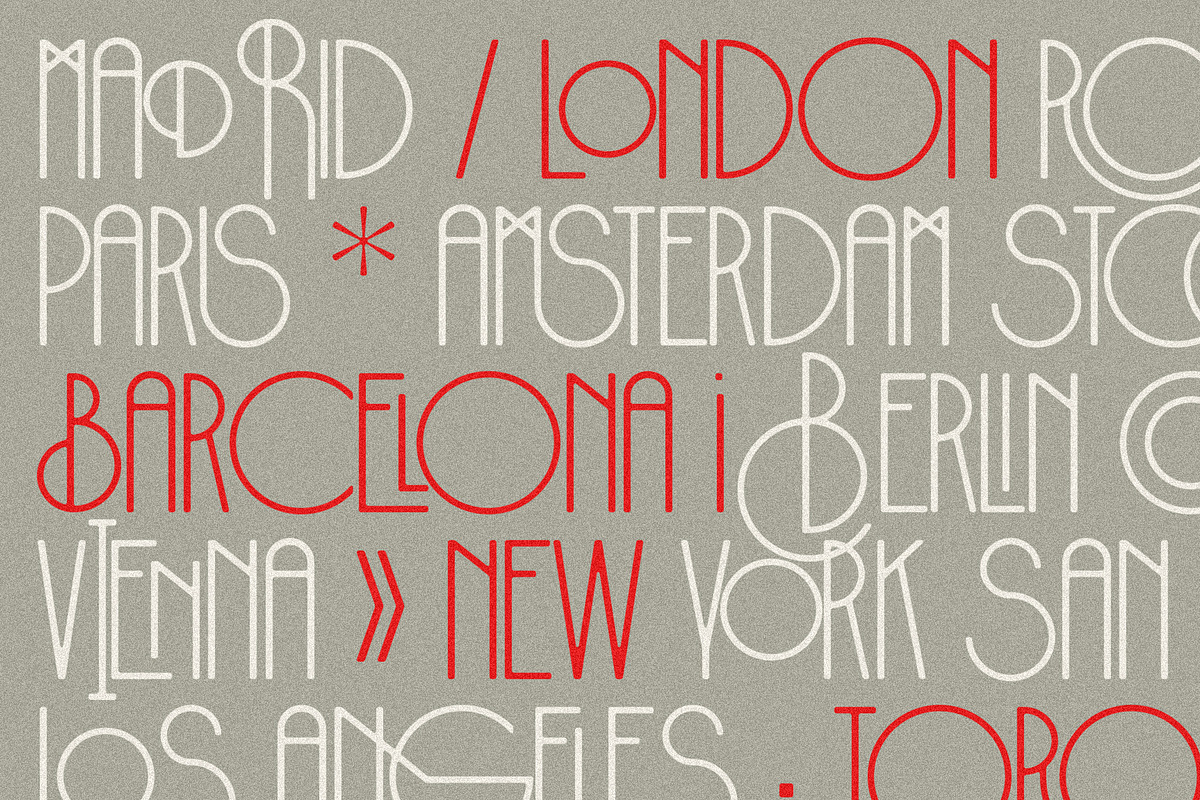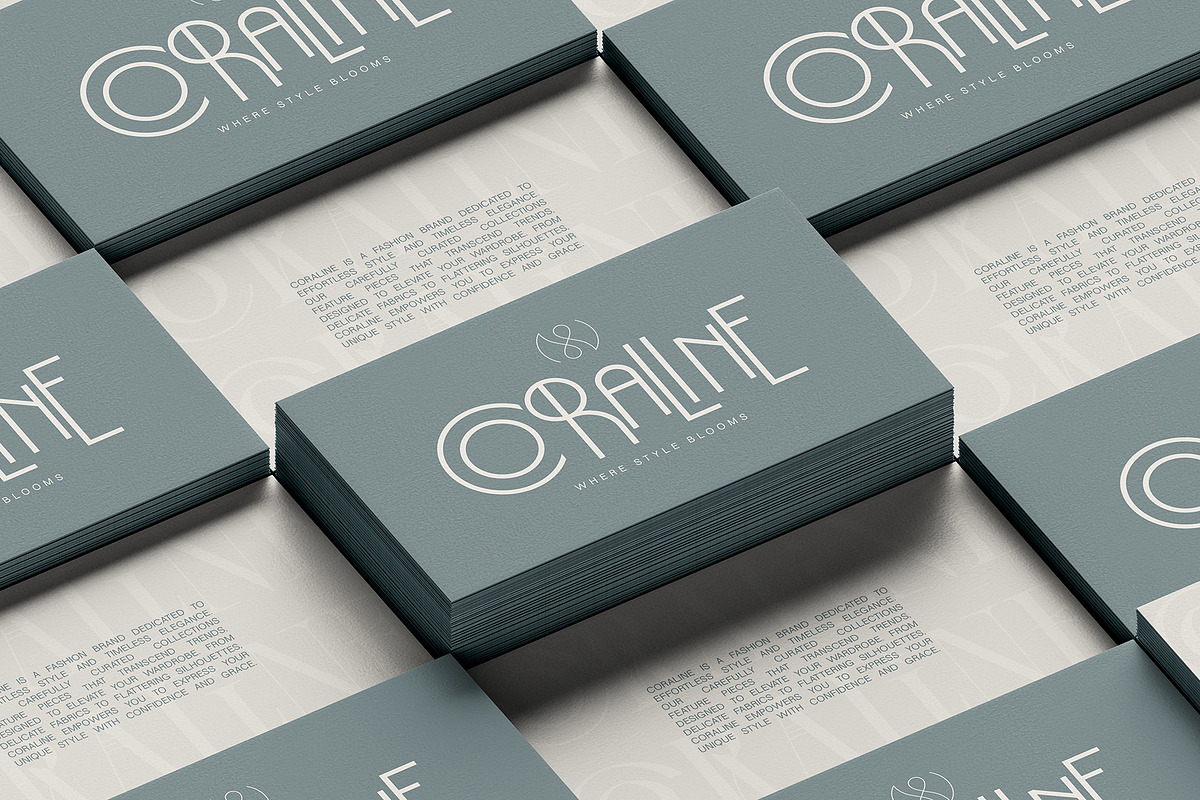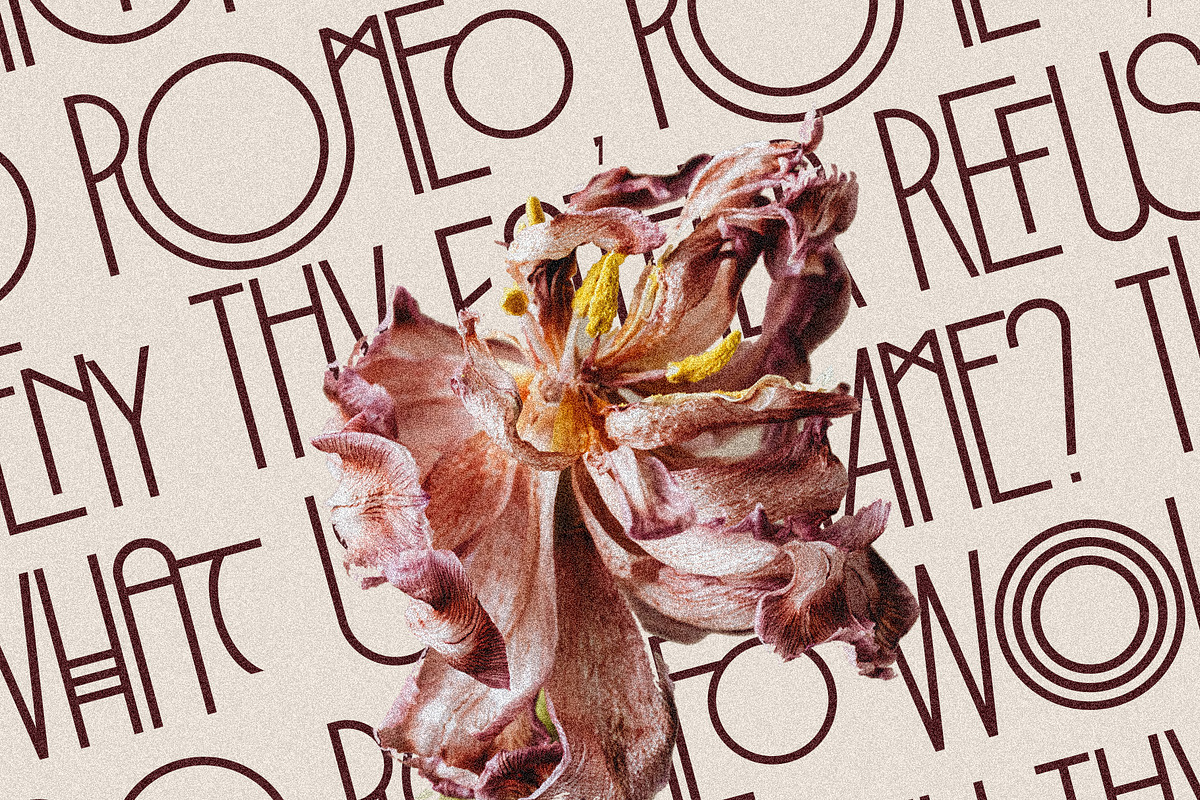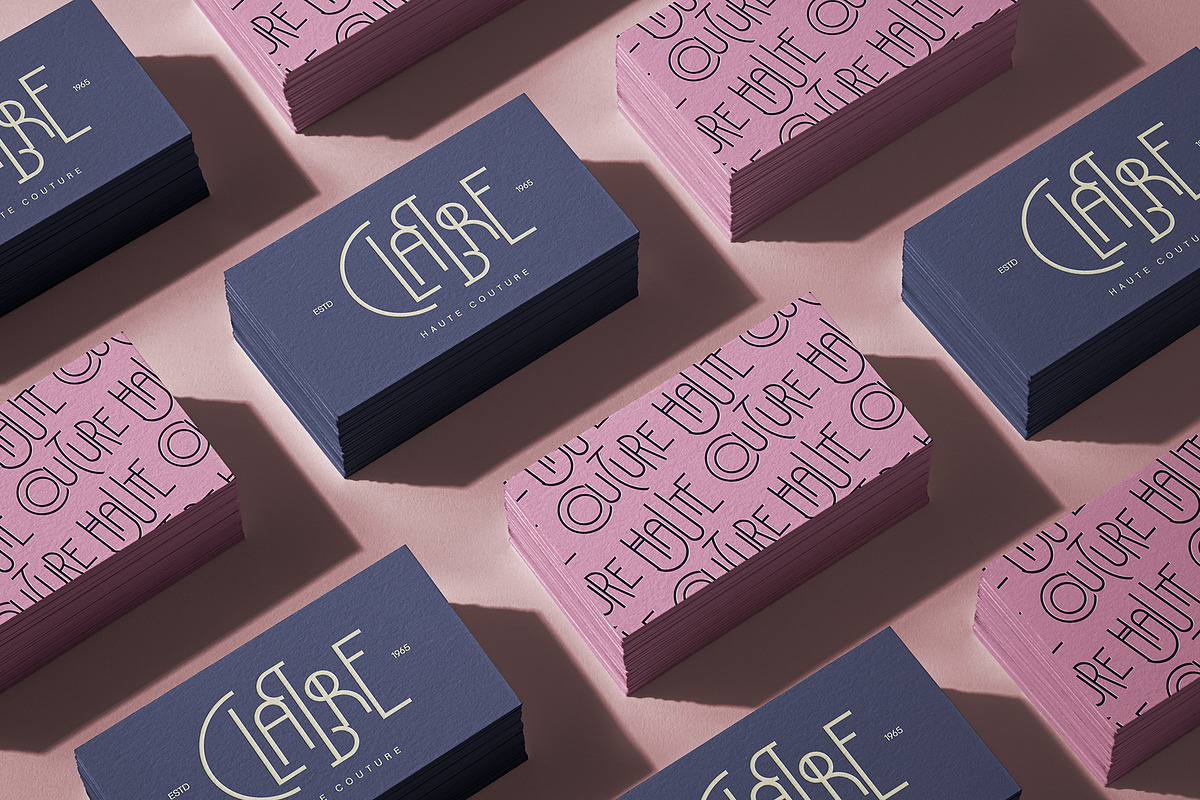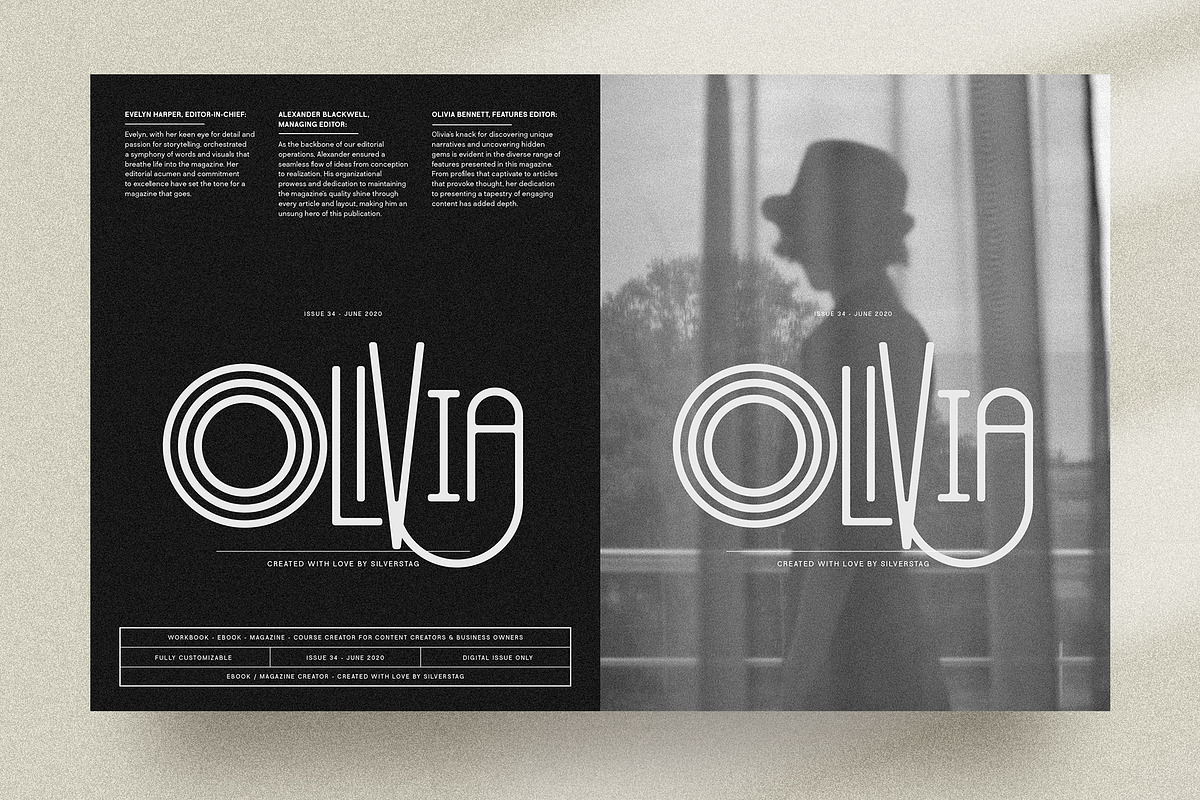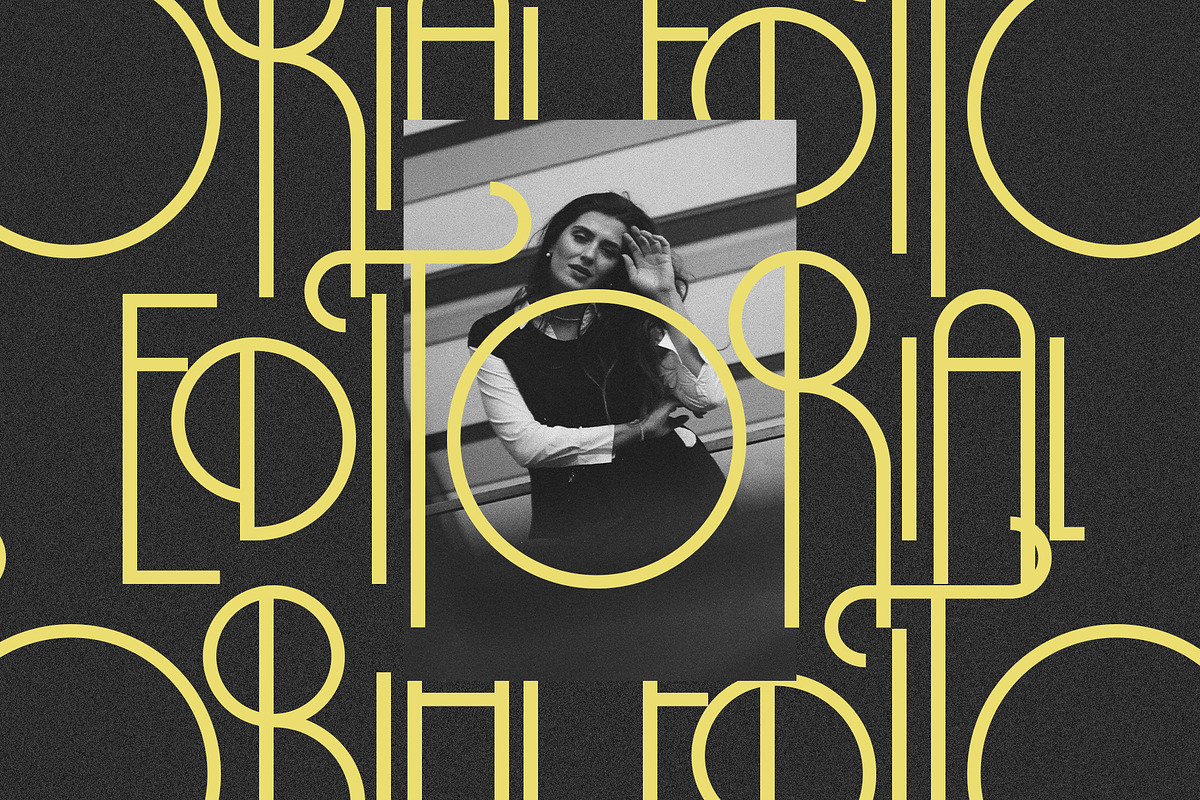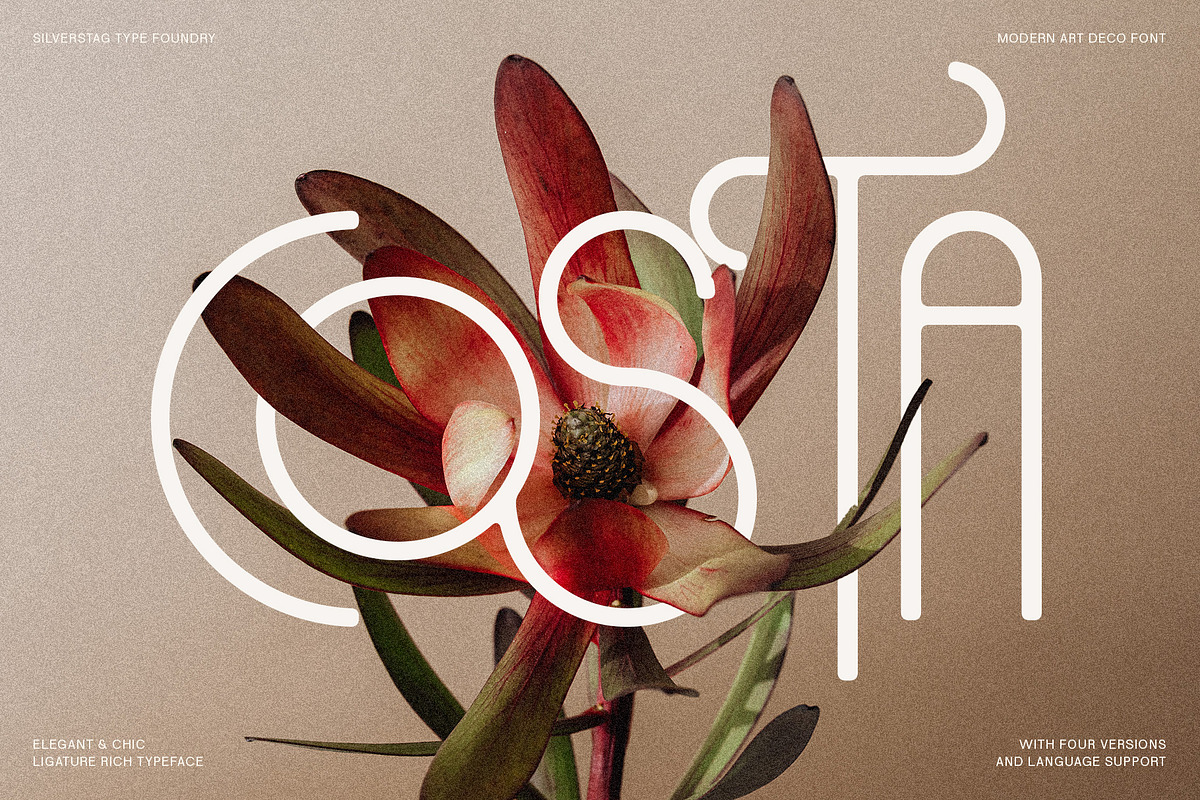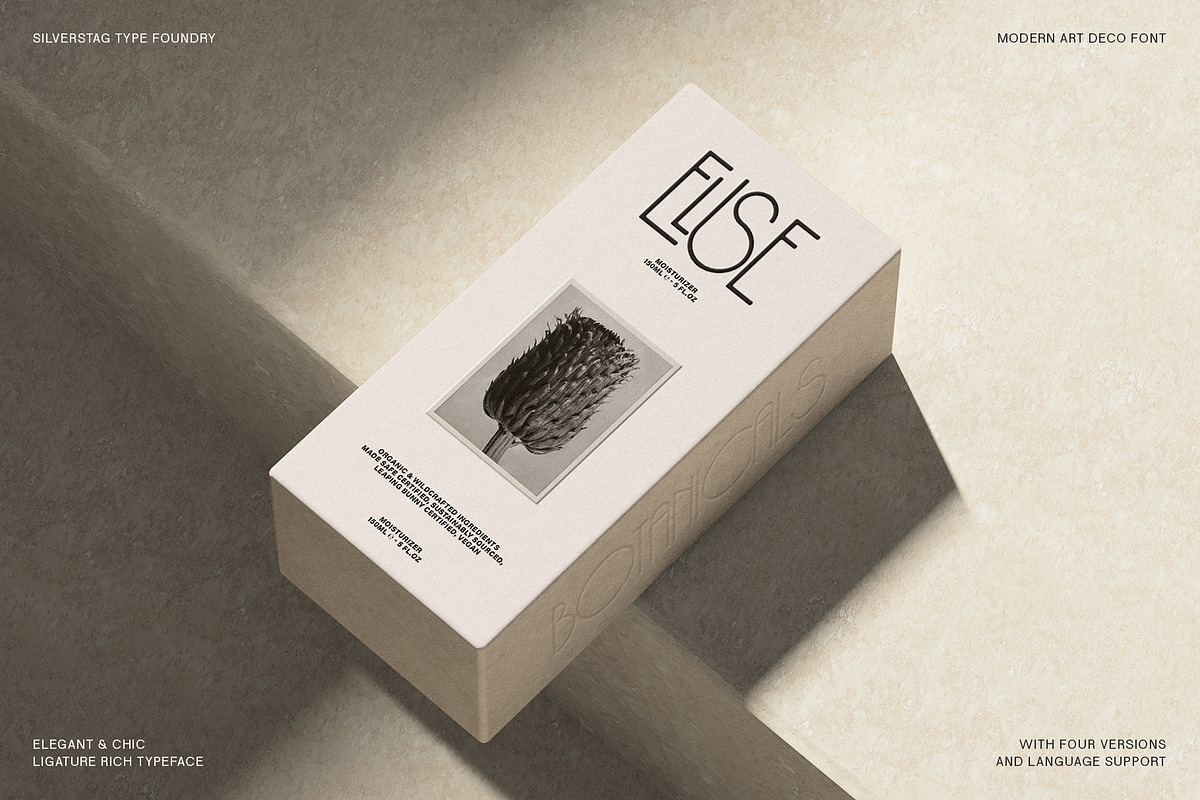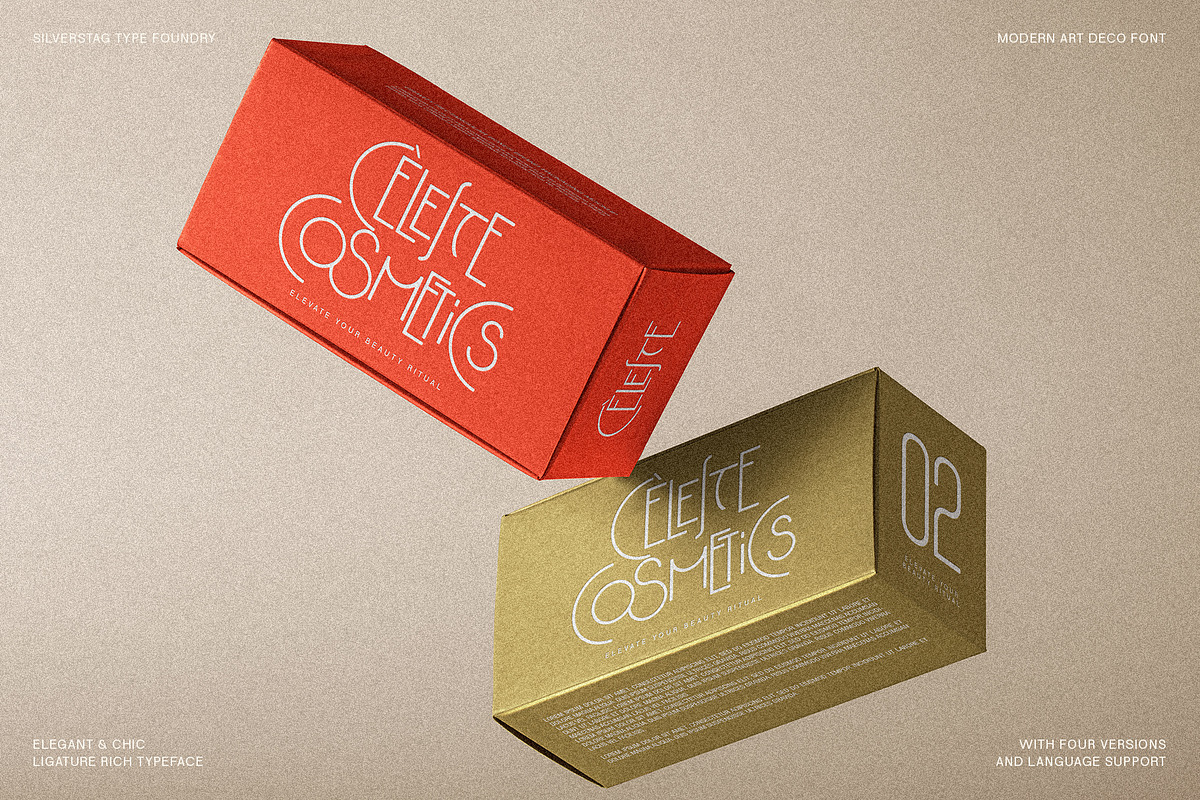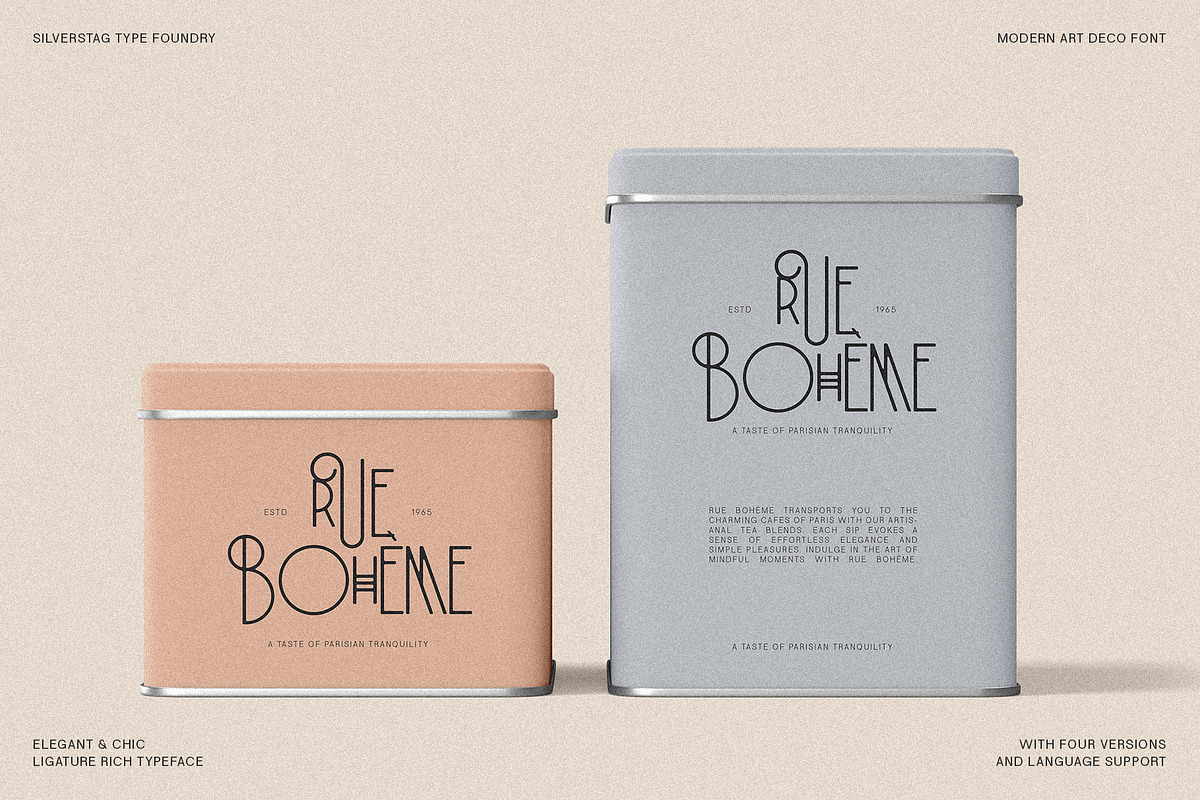
Costa de Malaga - Art Deco Font Pack
Introducing Costa de Malaga: Elegance Redefined, Art Deco Reimagined
Embrace the timeless allure of Art Deco with Costa de Malaga, a sophisticated font brimming with luxurious details and modern versatility. This comprehensive font family features an impressive 95 ligatures and a remarkable 260 stylistic alternates, empowering you to craft truly unique typographic expressions.
Unparalleled Customization
Costa de Malaga offers unprecedented design control. Each letter comes in 12 distinct variants, including 4 regular height, 4 small height, and 4 large height options. This allows you to fine-tune headlines, logos, and body text for the perfect balance and visual rhythm. Additionally, choose from four distinct styles: Regular, Regular Outline, Rounded, and Rounded Outline, to achieve the ideal look for your project.
Elegant Versatility
Costa de Malaga embodies a captivating blend of classic Art Deco charm and contemporary refinement. Its sleek lines, geometric forms, and subtle flourishes make it ideal for branding, editorial design, packaging, invitations, and any project demanding a touch of sophisticated elegance. Extensive language support for over 90 languages expands your creative reach across global audiences.
- 95 elegant ligatures
- 260 stylistic alternates
- 12 variants per letter (4 regular, 4 small, 4 large)
- 4 style options: Regular, Regular Outline, Rounded, Rounded Outline
- Over 90 languages supported